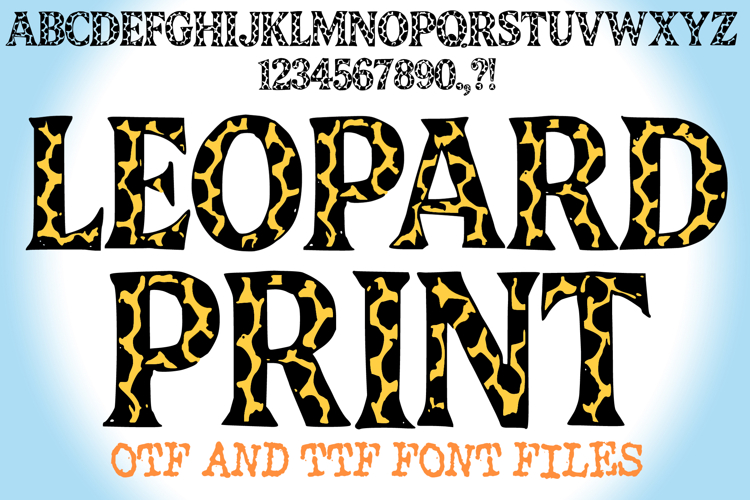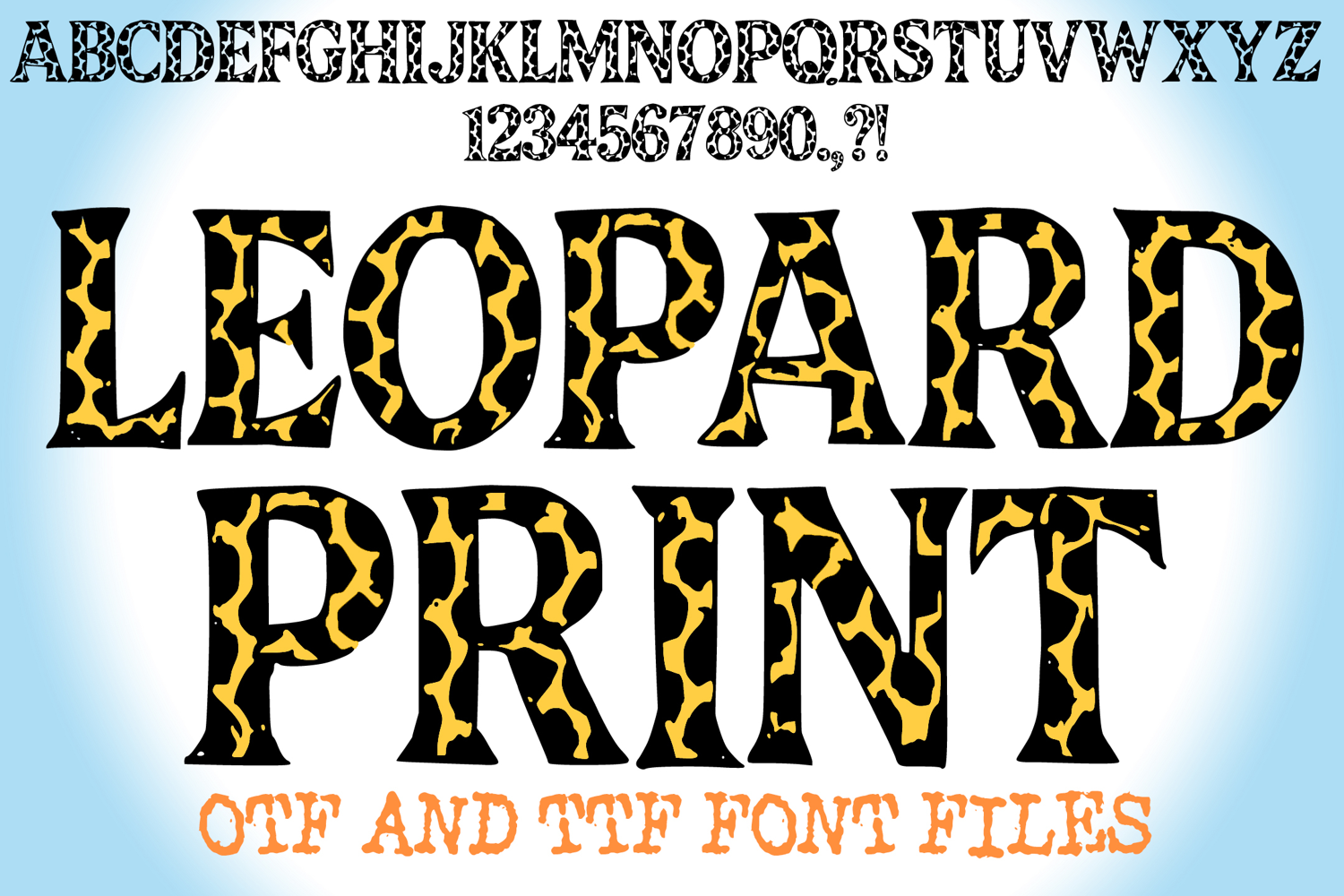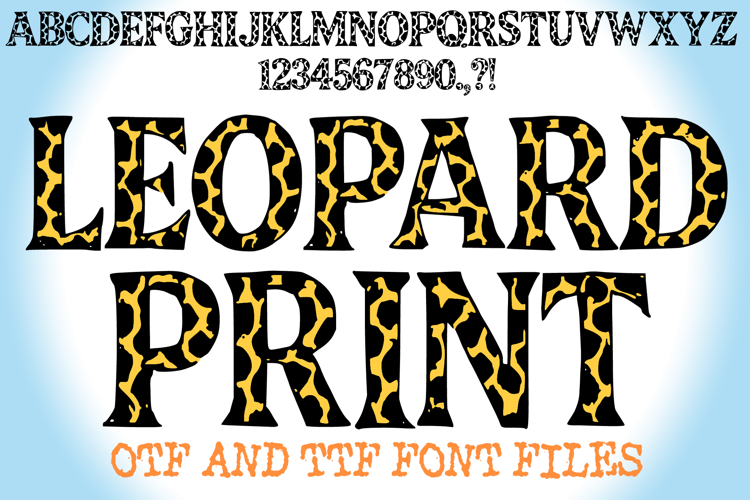
Leopard Print Alphabet Lettering ABC Animal Text Font OTF
A unique spotty style font where you can create your own words and colour them to your vision!